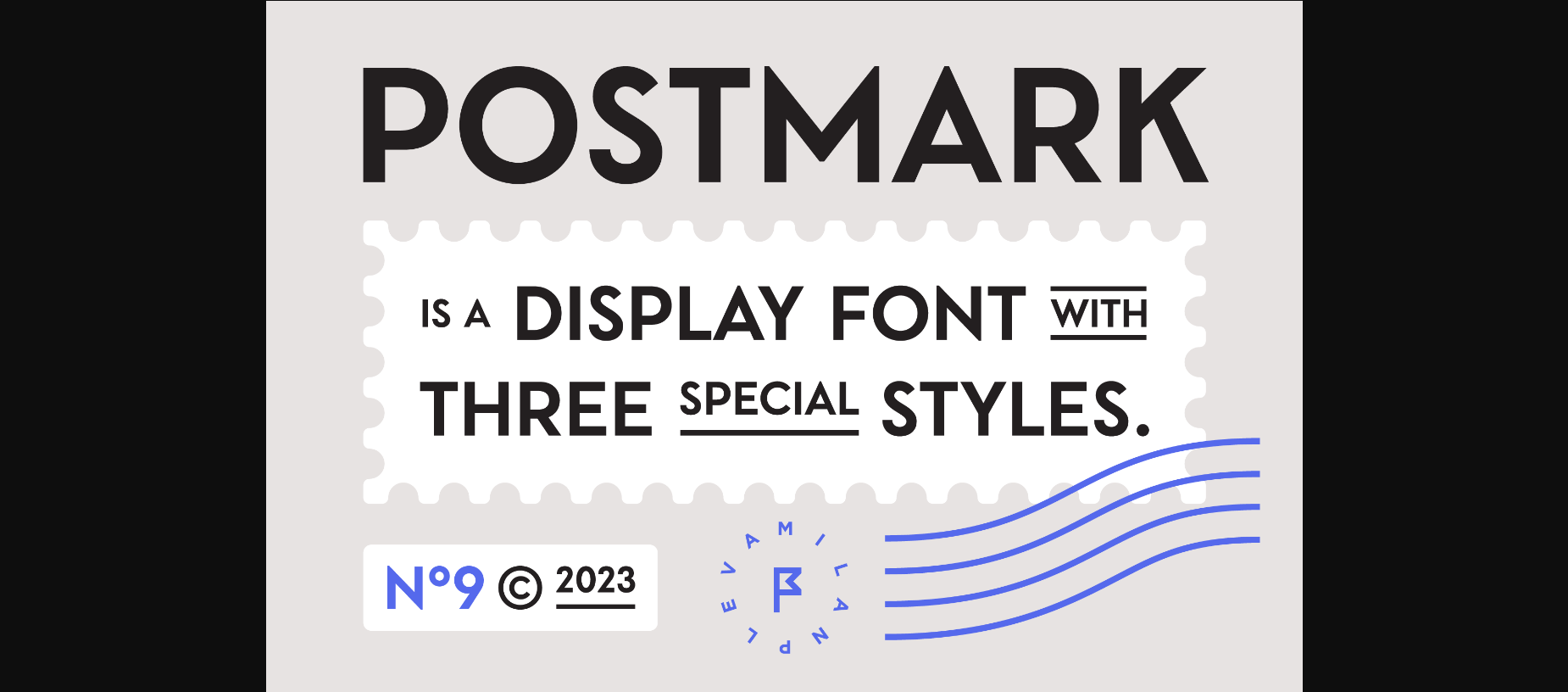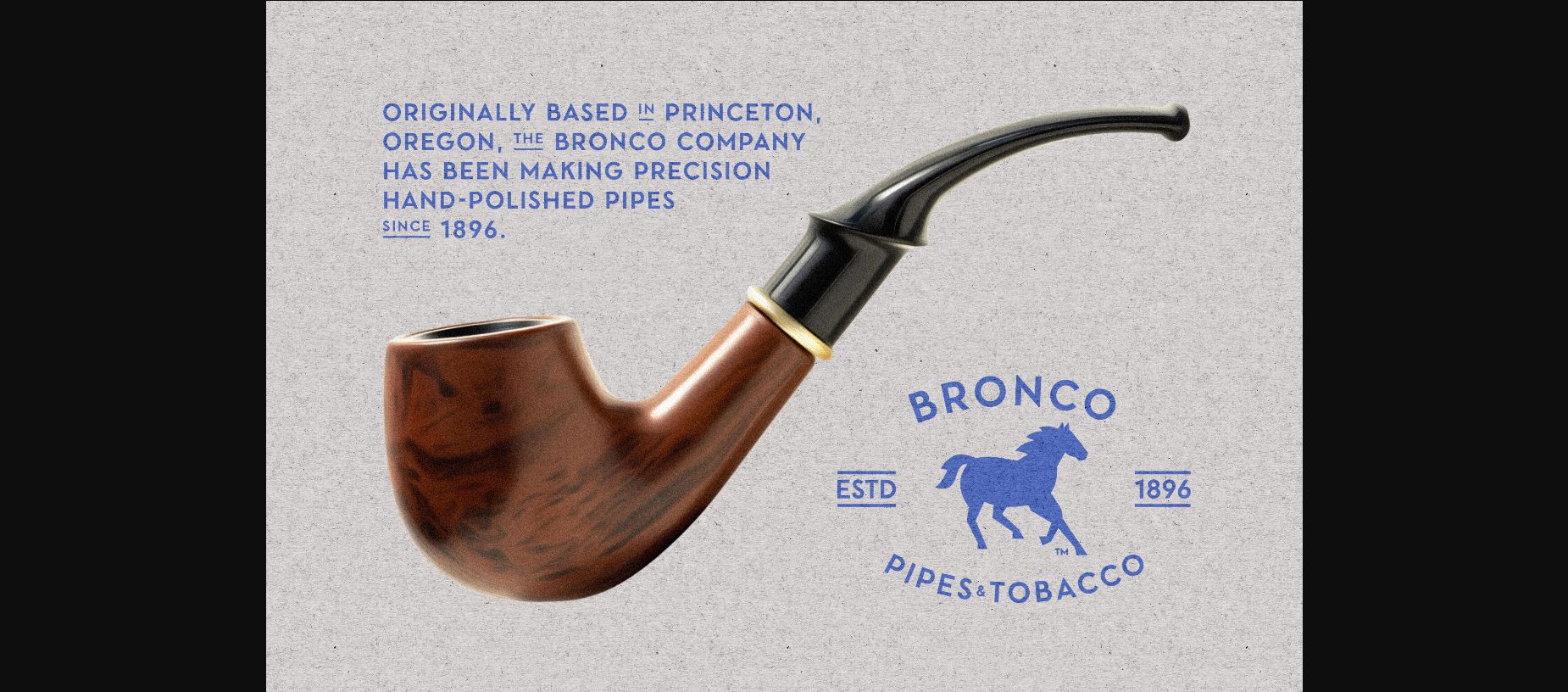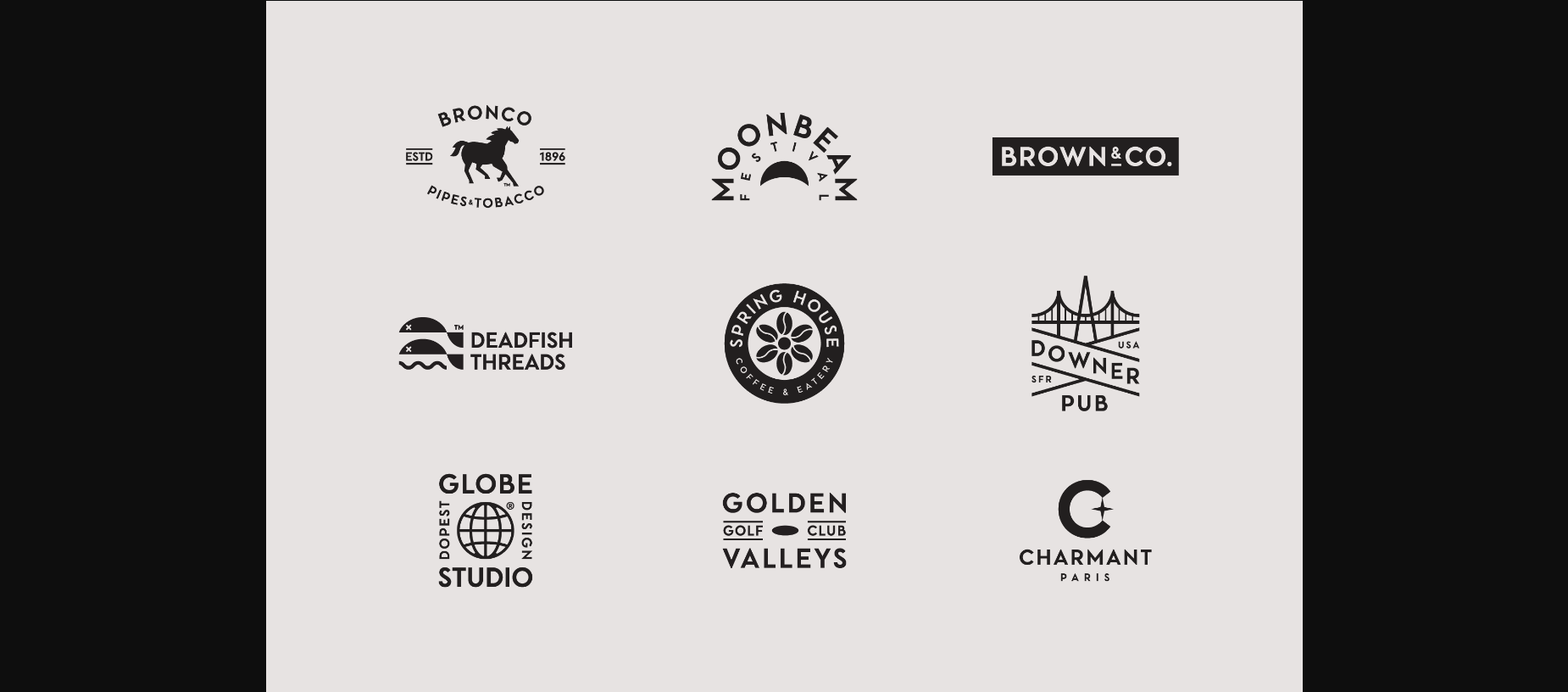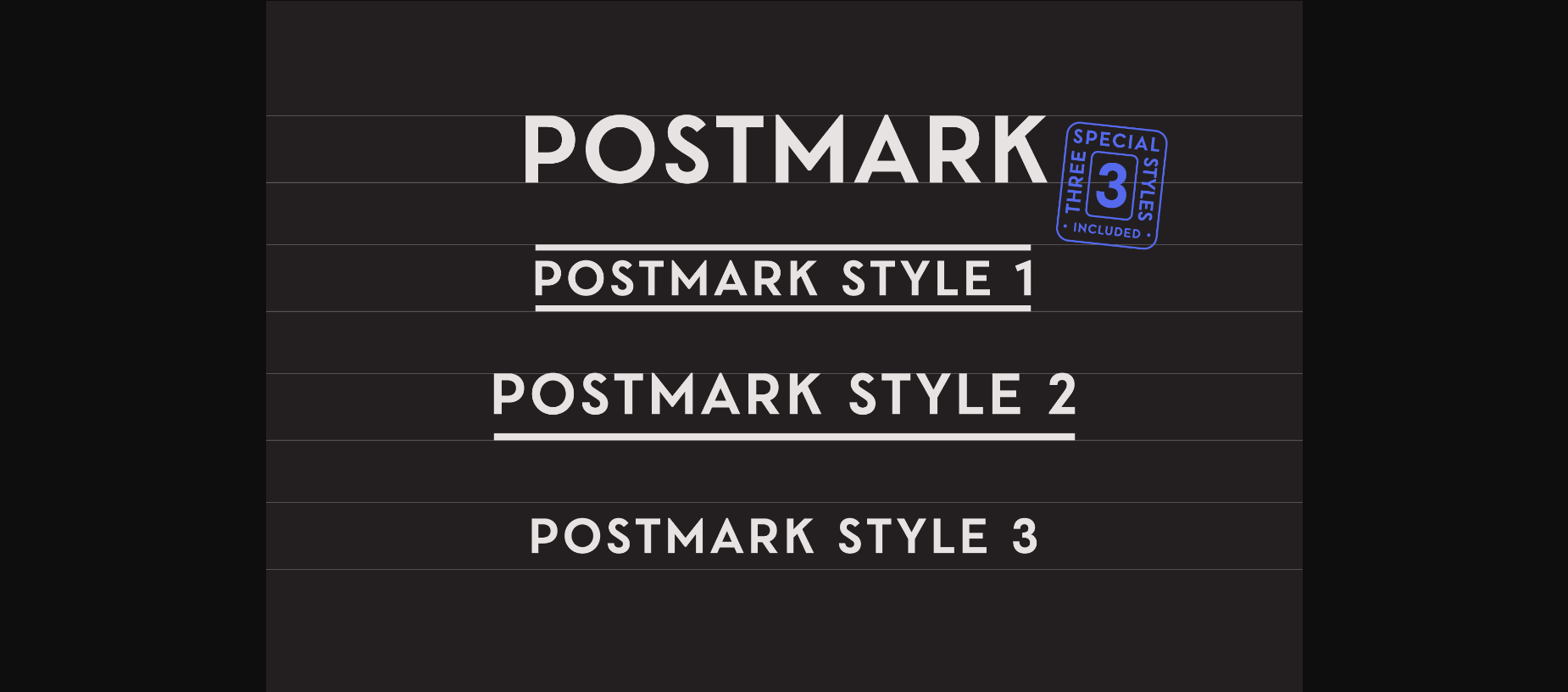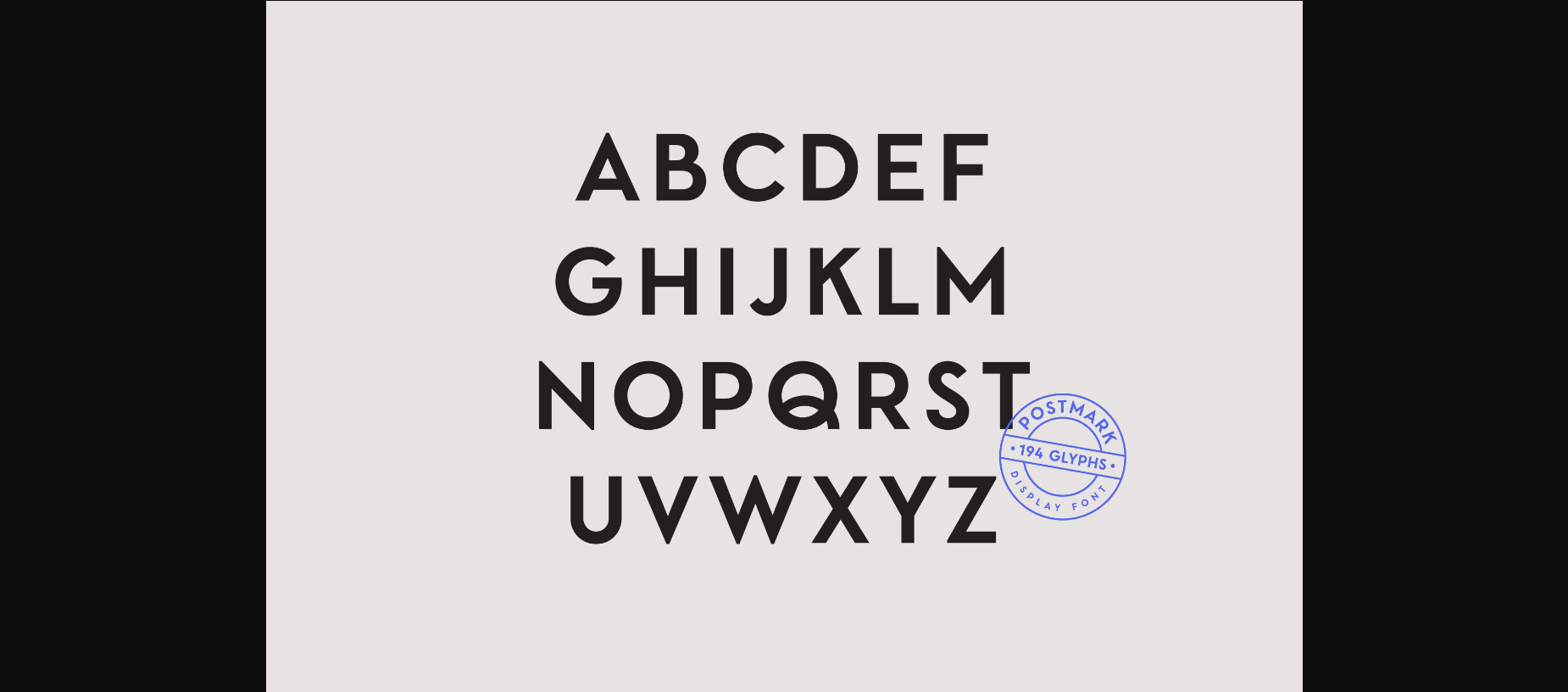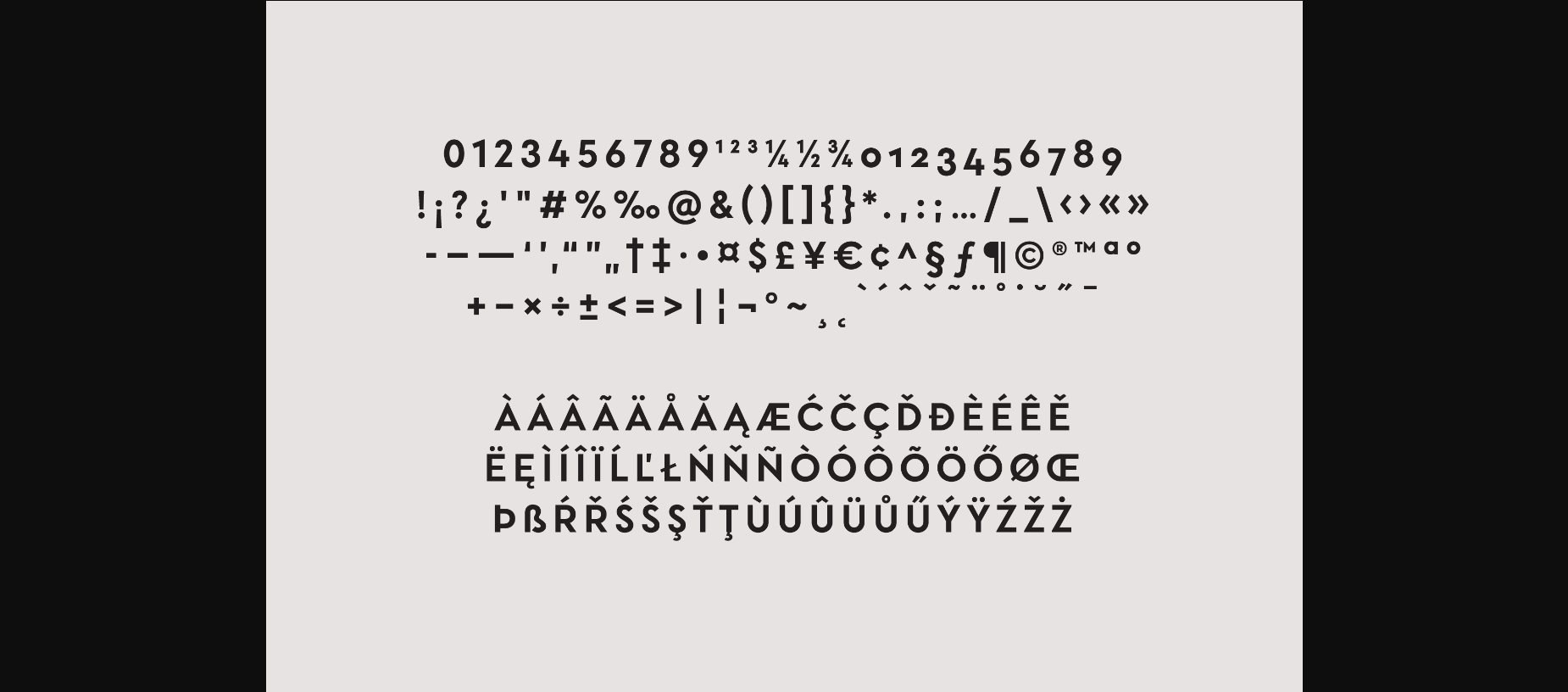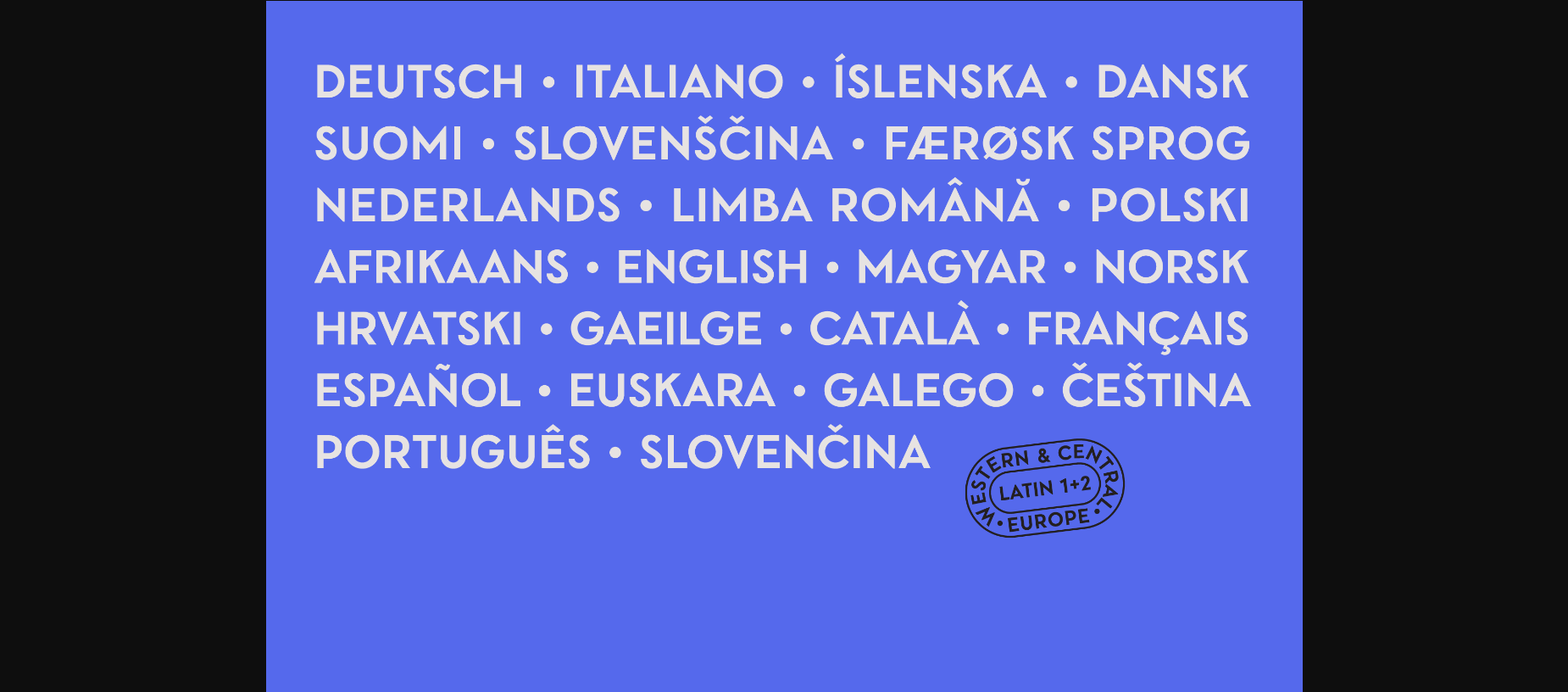
About Postmark Font
Postmark is a clean geometric display font with one basic and three special styles.
Special styles were created to complement the main font and to differentiate words or sentences. Postmark is ideal for headlines, headers, logos, labels, packaging, magazines, invitations, etc.